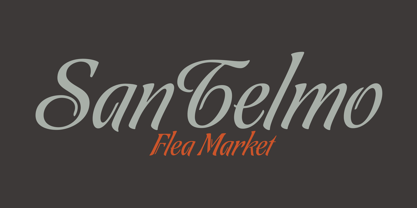
Tanguera
par Sudtipos
Tanguera Font la famille était conçu par Alejandro Paul, Angel Koziupa et publié par Sudtipos. Tanguera contient 1 styles.
While Bellas Artes, Koziupa and Paul's "other" look at intertwined classicism in calligraphy, can be compared to the repeated patterns of standardized dance steps, Tanguera is more like dancers engaged in a free form of the classic Argentine dance. Whether the embrace is open or closed, the walk parallel or crossed, it is still classical tango, with leader and follower blending together, sometimes in relaxed softness, sometimes in alert sharpness, yet never losing the clearest of communication. Tanguera provides essential rhythm to any packaging design that calls for clean and classical personalization.